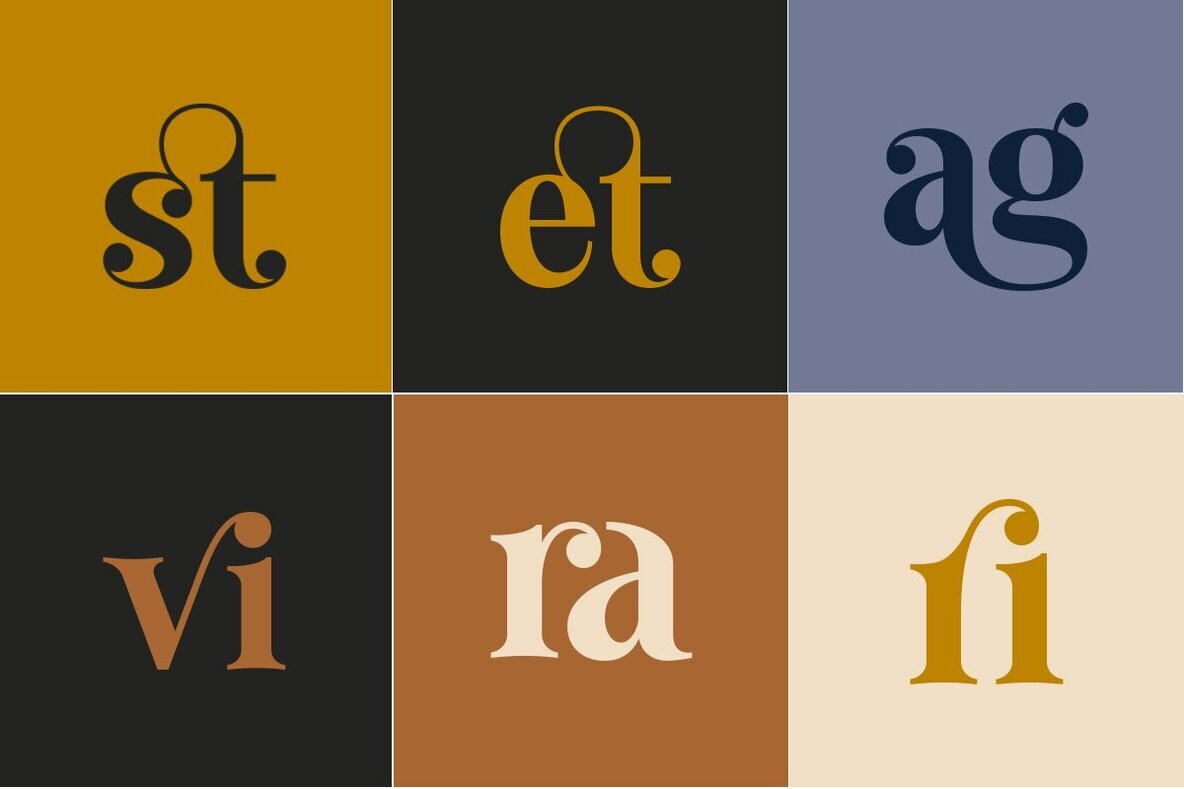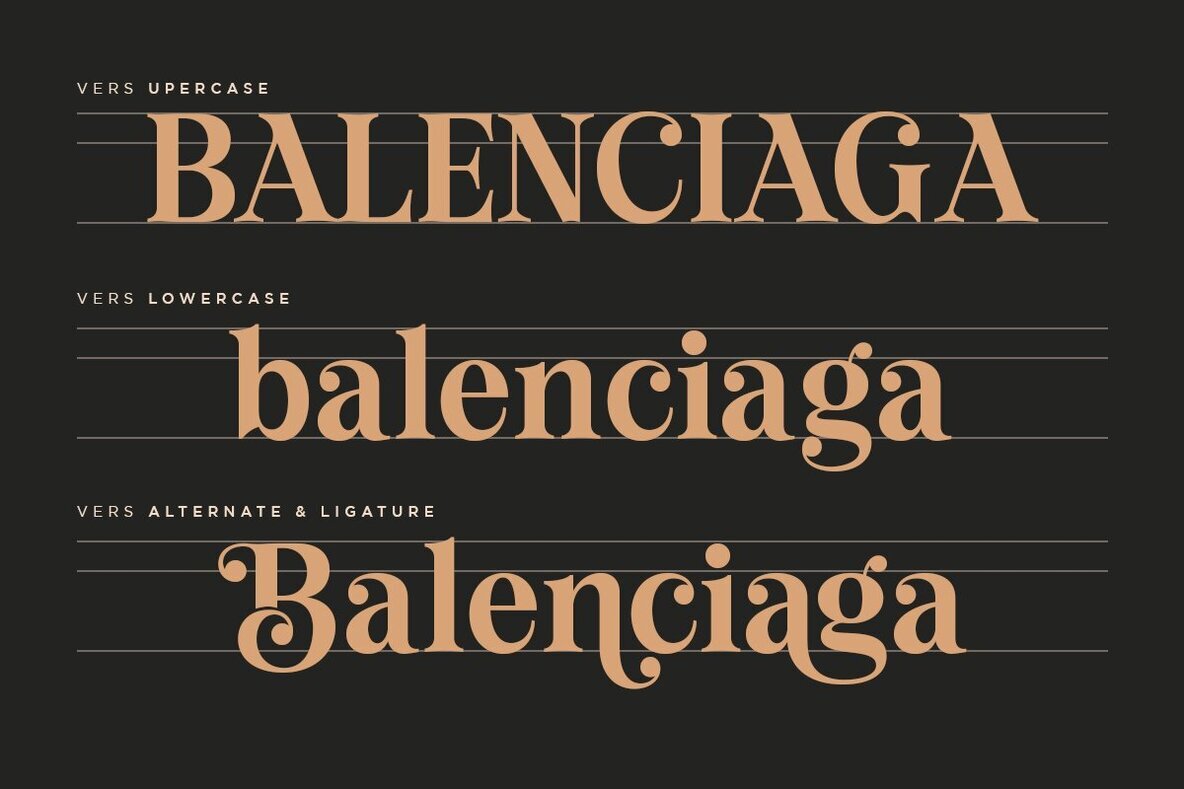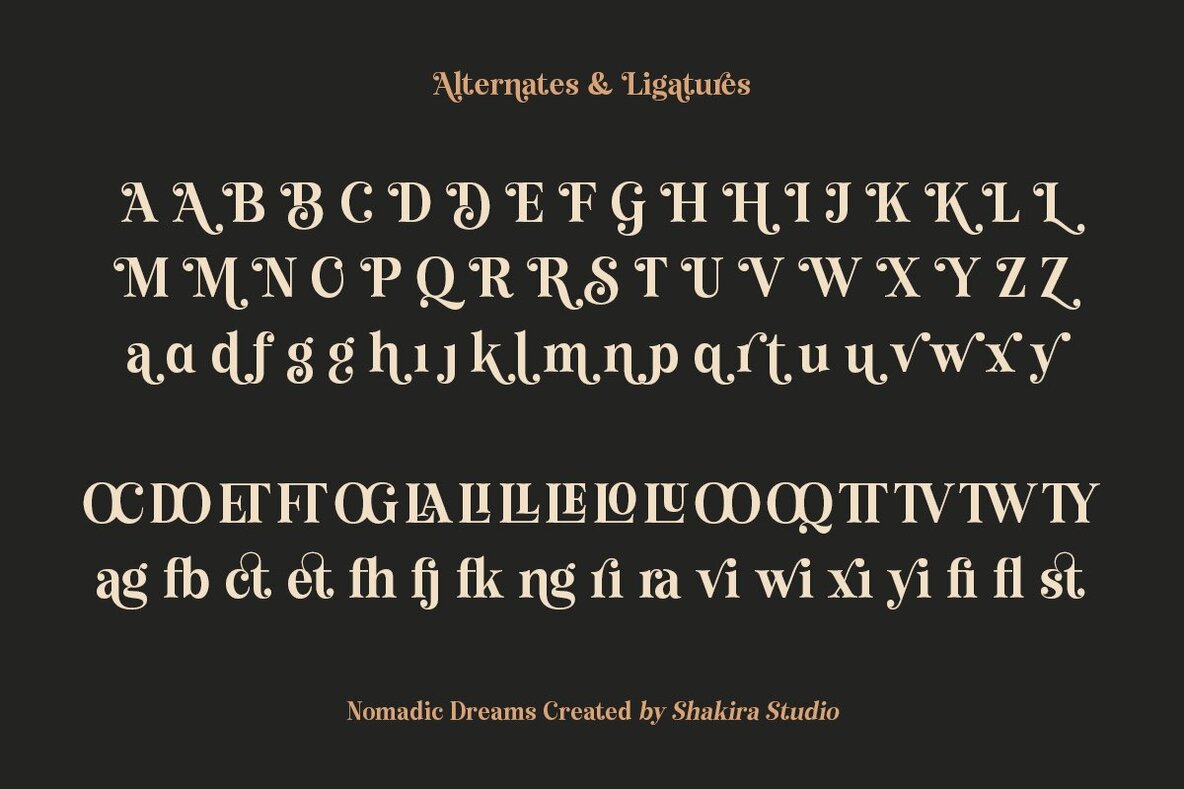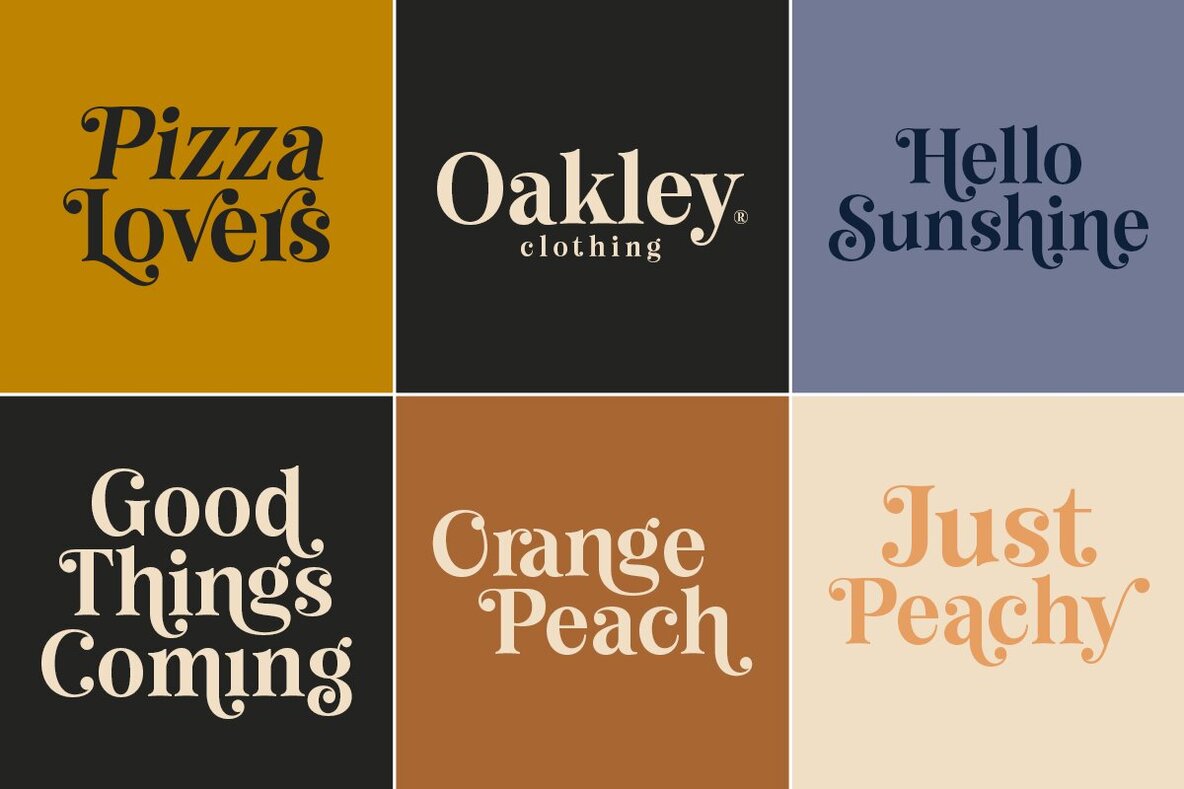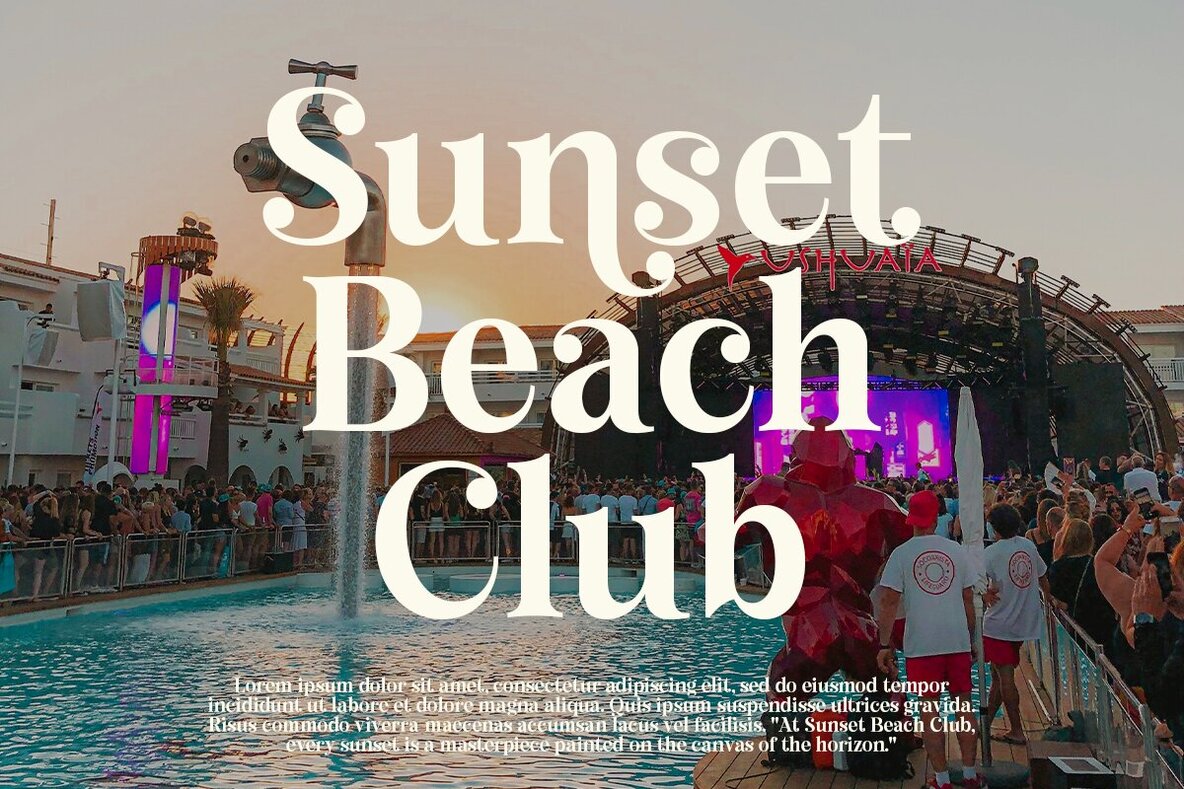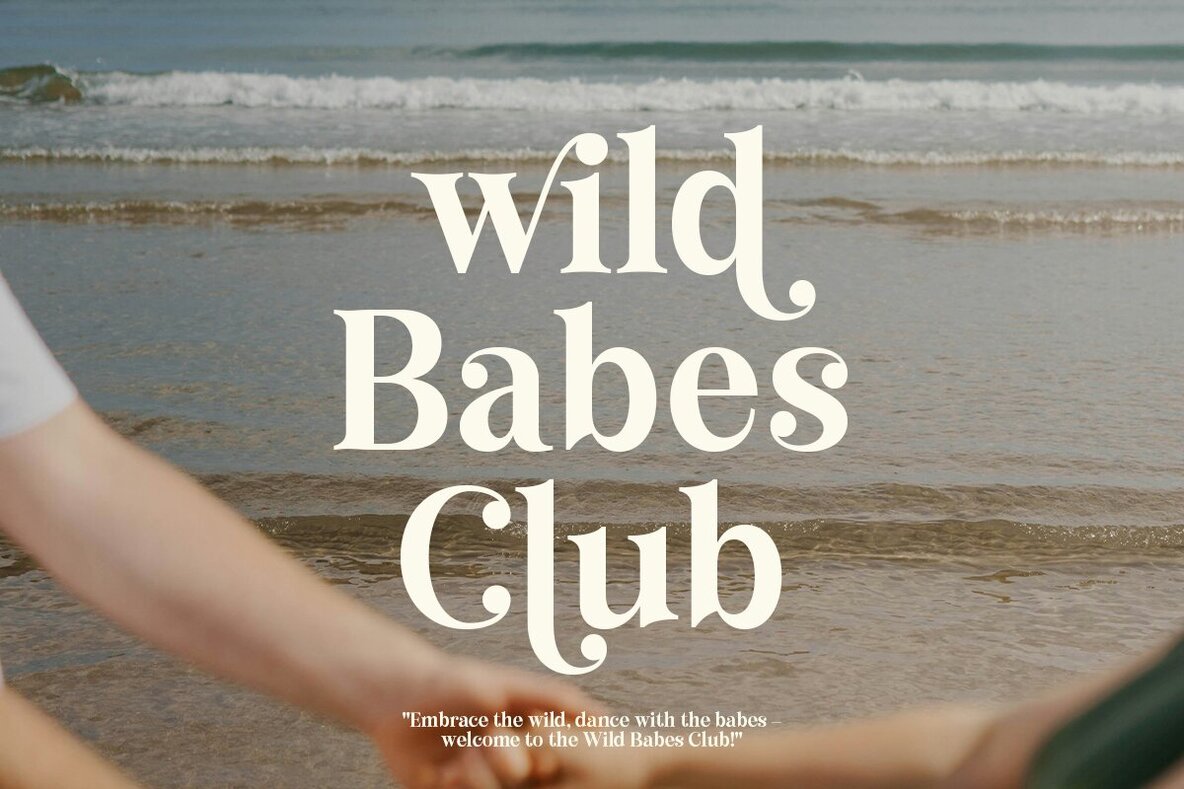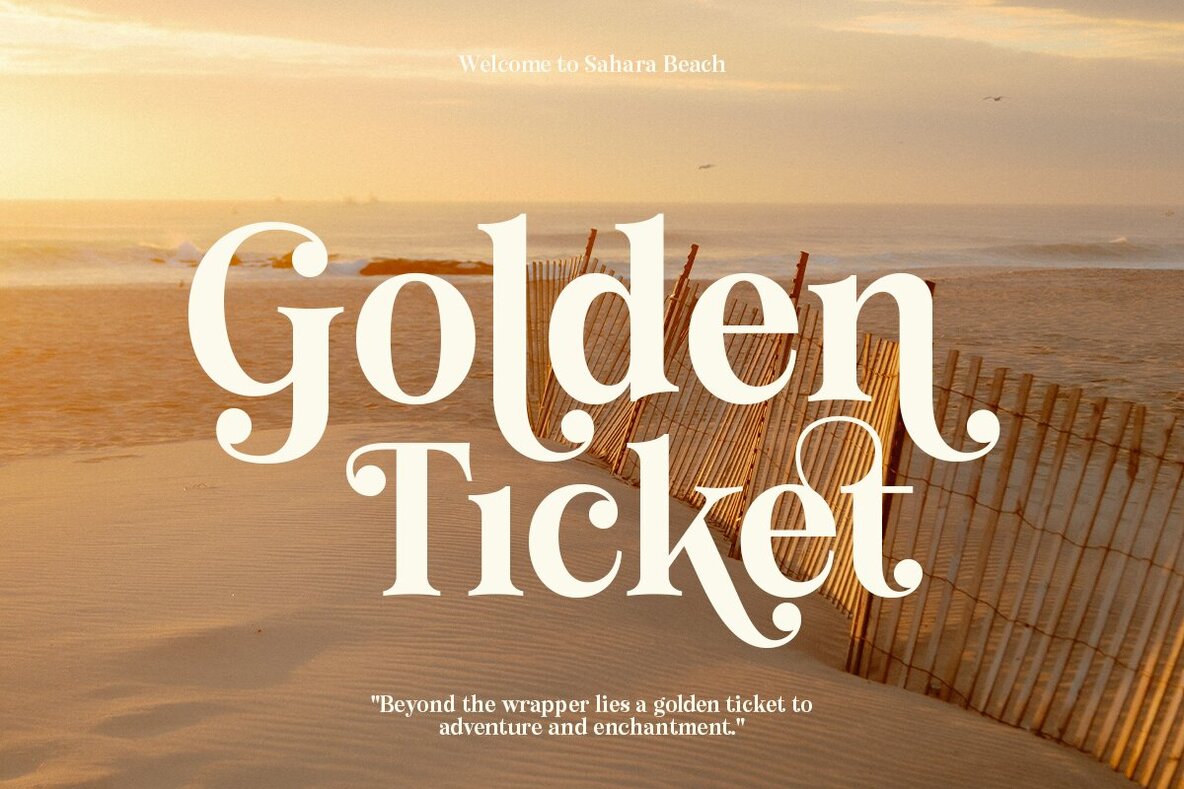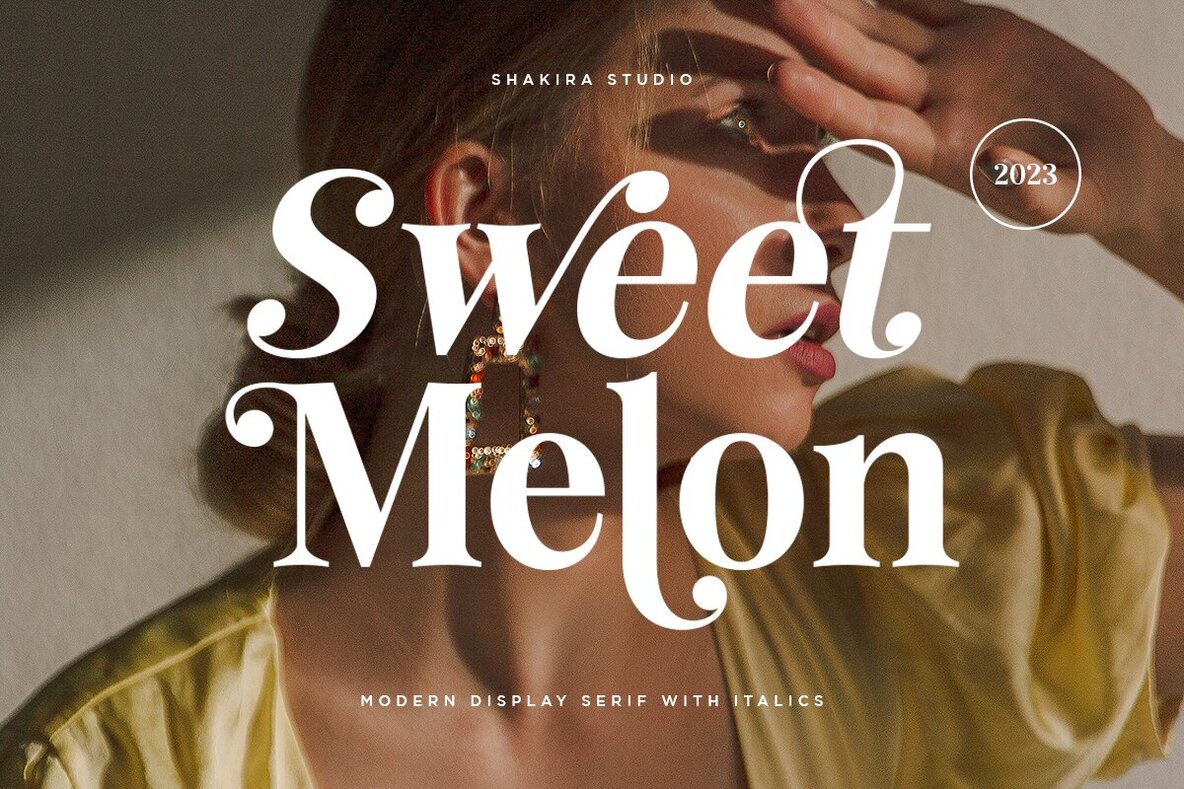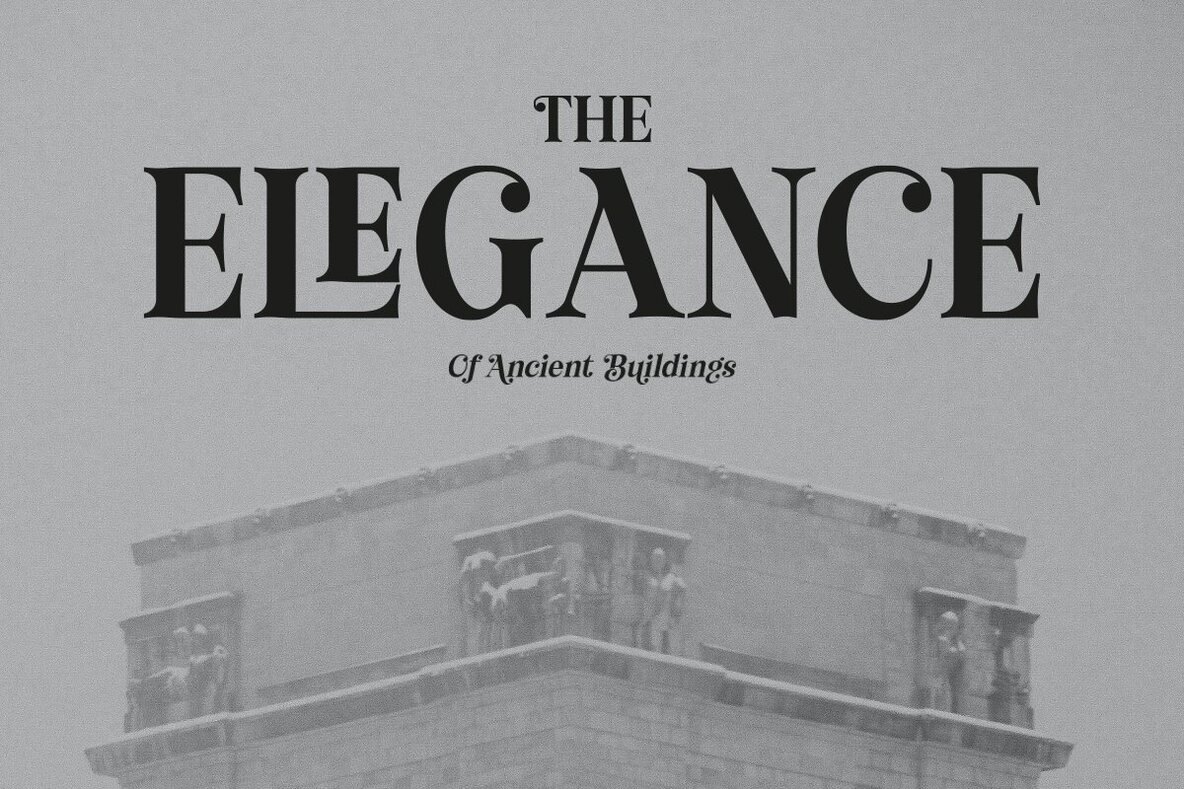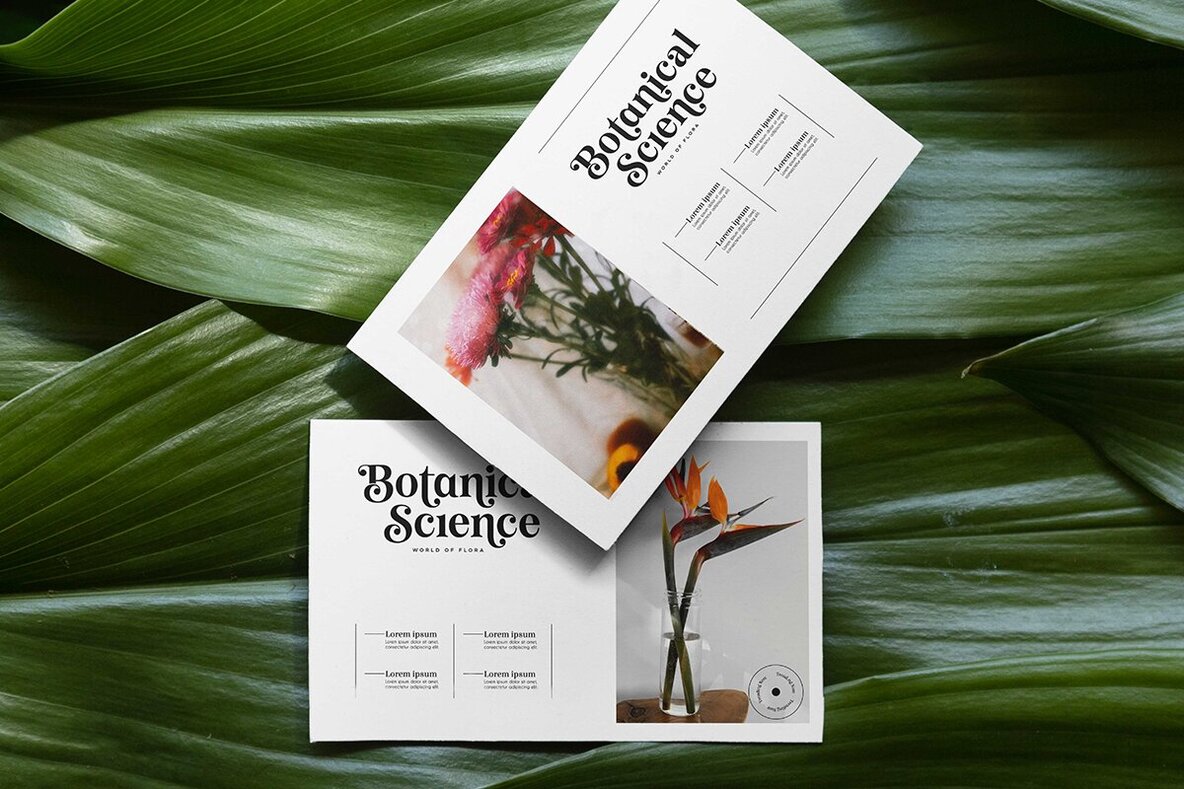
Nomadic Dreams Font
Nomadic Dreams Regular
Nomadic Dreams Italic
Nomadic Dreams is meticulously crafted with sleek, well-defined letterforms that convey a contemporary charm. The serifs are thoughtfully designed to bring a touch of class and readability to every character, making it suitable for a variety of design applications. What sets Nomadic Dreams apart is its diverse range of alternates and ligatures. These design elements offer a playground for creativity, allowing you to customize and tailor your text to evoke different moods and styles. Whether you're looking for a classic look or something more whimsical, Nomadic Dreams provides the tools to bring your vision to life. This font is not just a static typeface; it's a dynamic expression of your design narrative. Nomadic Dreams is perfect for editorial design, branding, invitations, or any project where the seamless integration of modernity and classic elegance is paramount. Supports Afrikaans, Albanian, Catalan, Croatian, Czech, Danish, Dutch, English, Estonian, Finnish, French, German, Hungarian, Icelandic, Italian, Lithuanian, Maltese, Norwegian, Polish, Portuguese, Slovenian, Spanish, Swedish, Turkish, and Zulu.Nomadic Dreams: Modern Serif with Infinite Possibilities